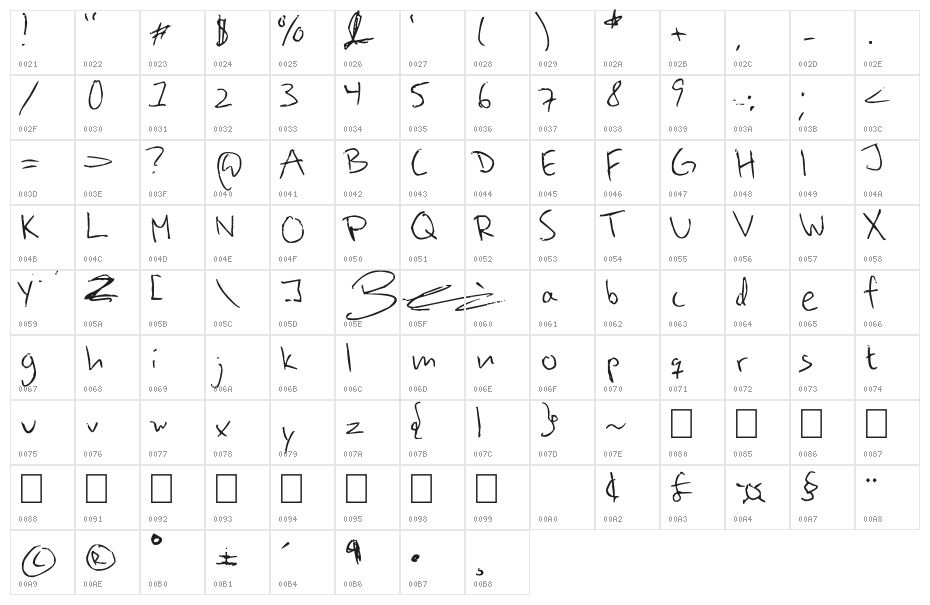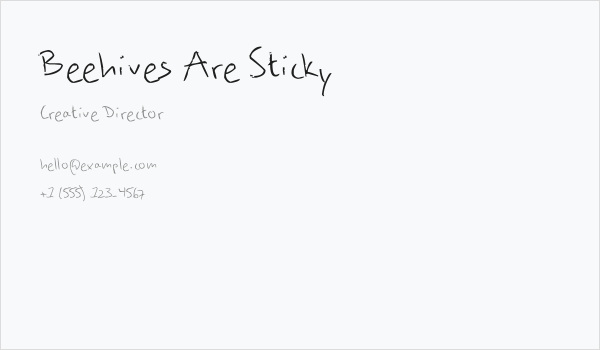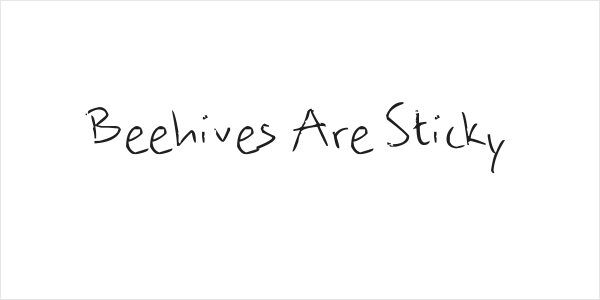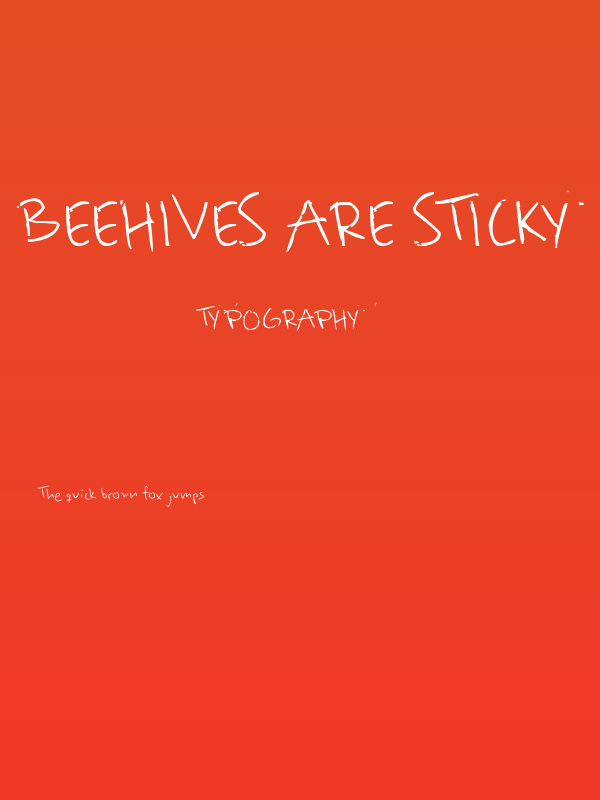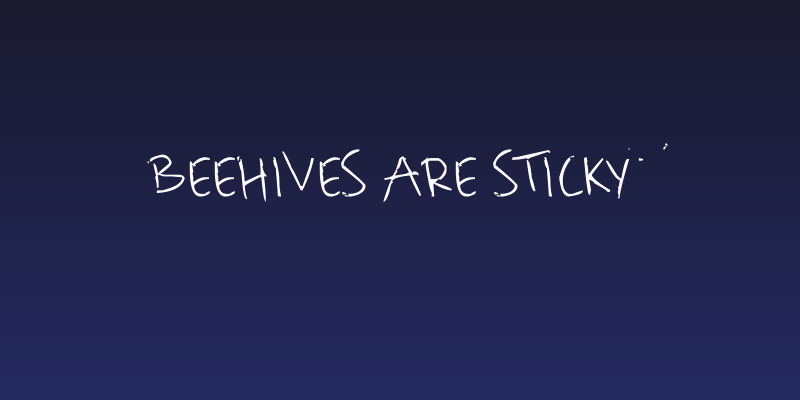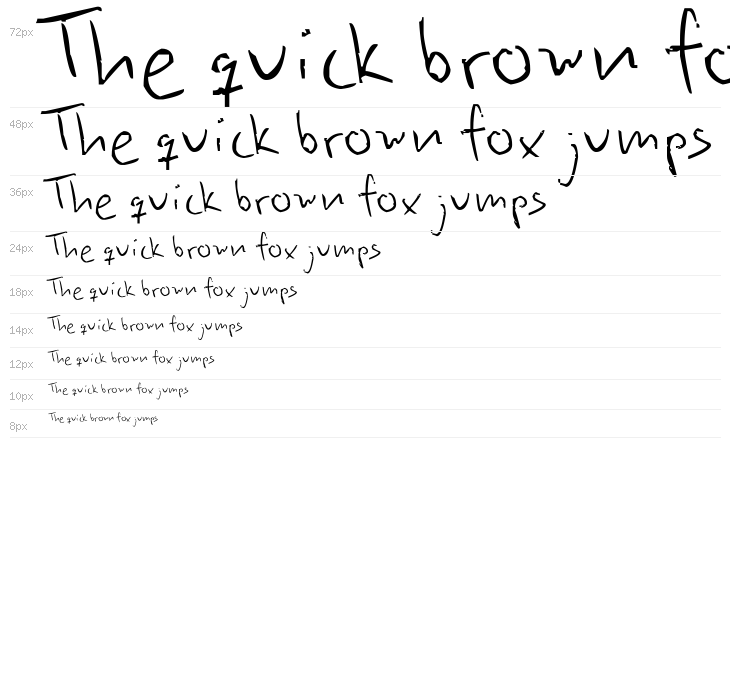
Beehives Are Sticky Font
Beehives Are Sticky Description
This font exhibits a casual and playful handwritten style, characterized by its irregular strokes and slightly uneven baseline. The letters have a natural, organic feel, with varying stroke widths that add to its informal charm. The uppercase and lowercase letters maintain a consistent style, while the numerals and special characters complement the overall aesthetic. This font's unique personality makes it stand out, offering a sense of spontaneity and creativity.
| Proposed Projects | Ideal for projects that require a personal touch, such as greeting cards, invitations, children's books, or creative branding materials. |